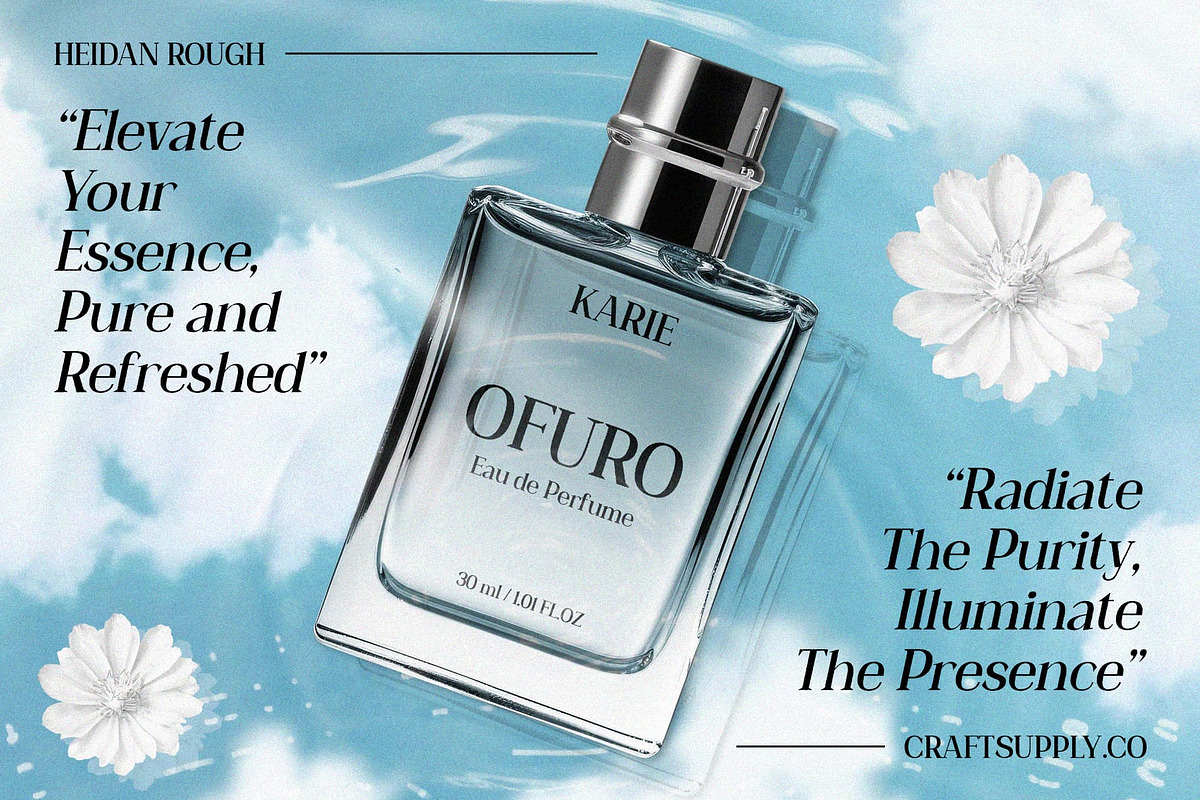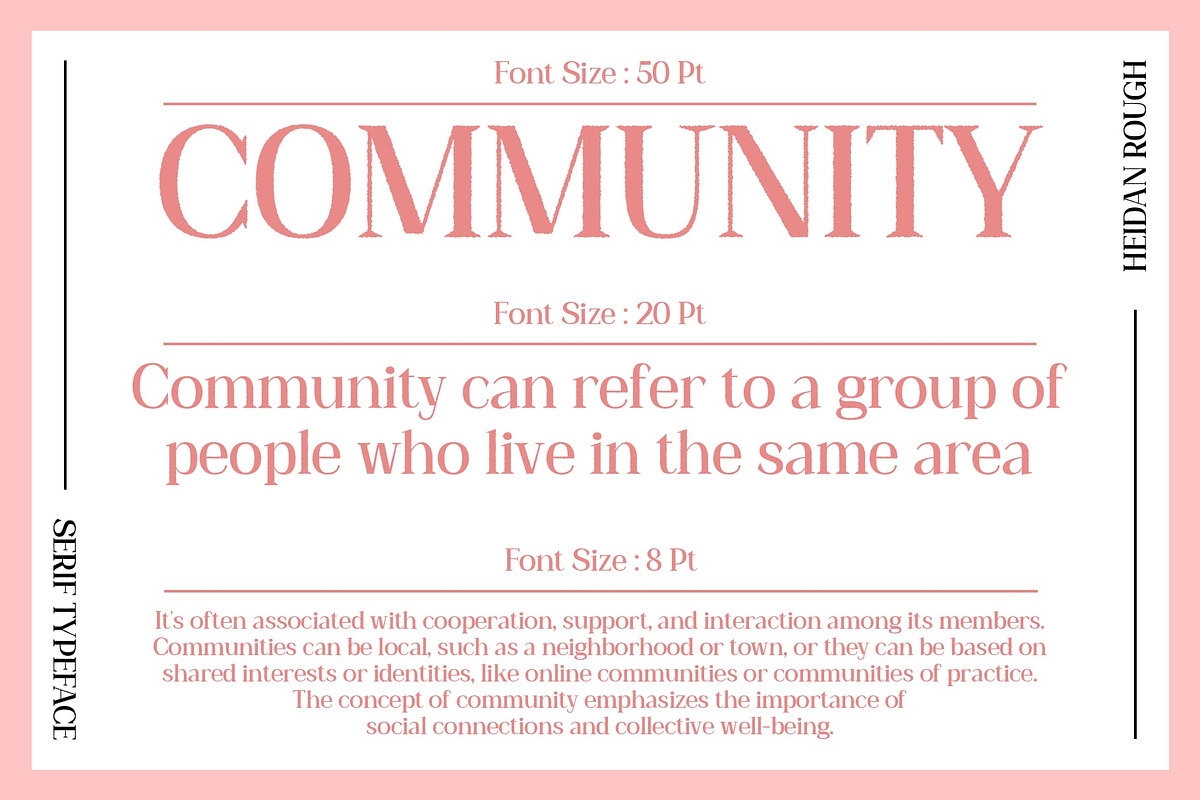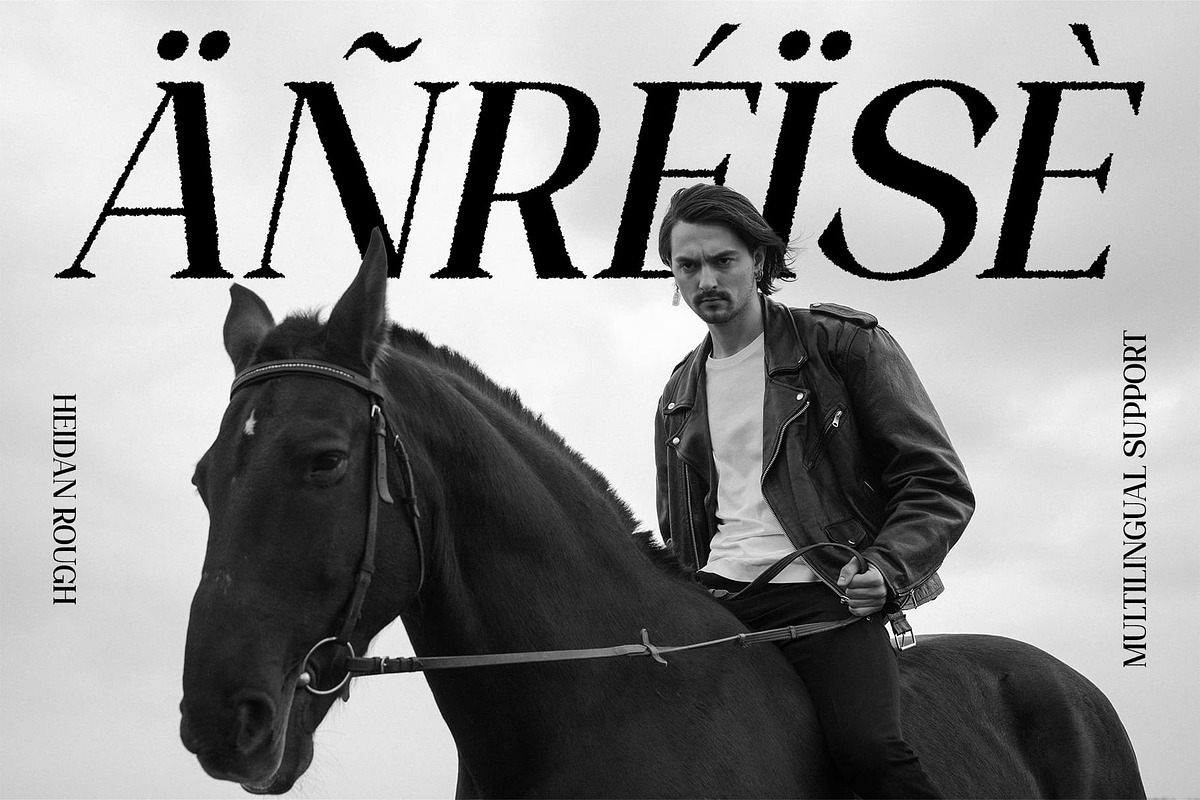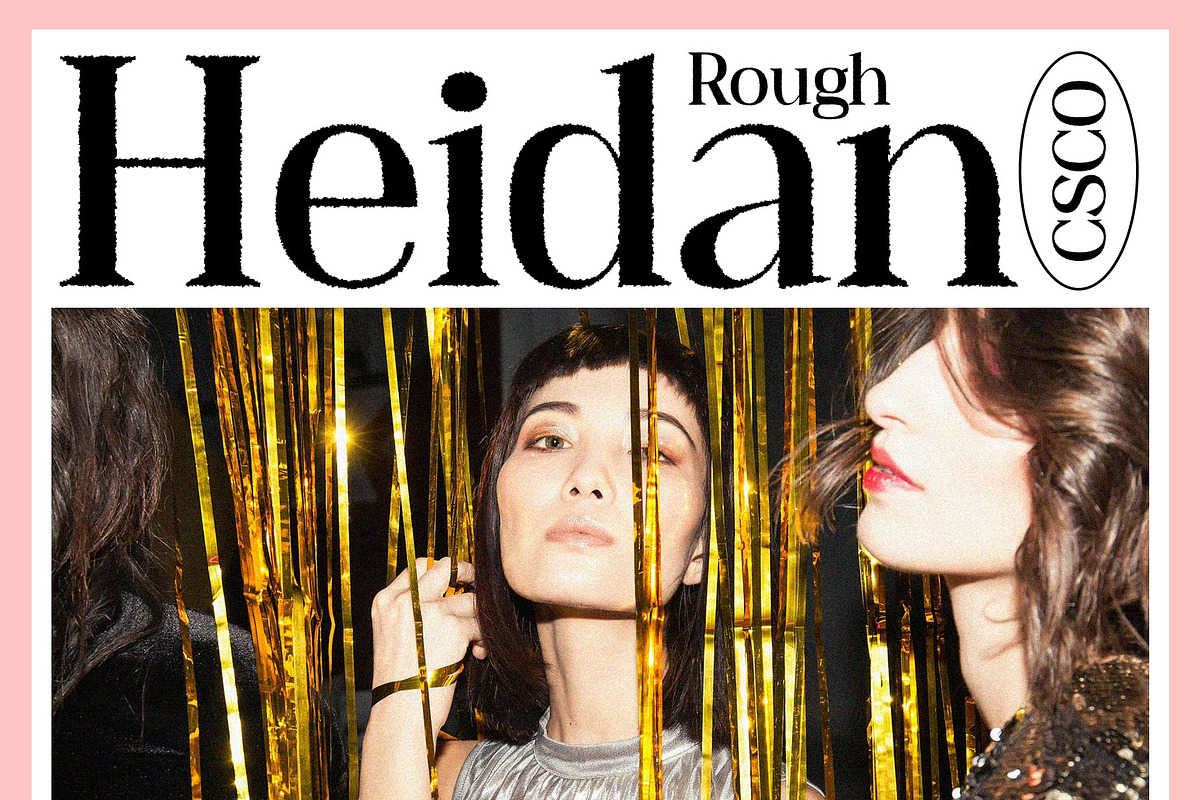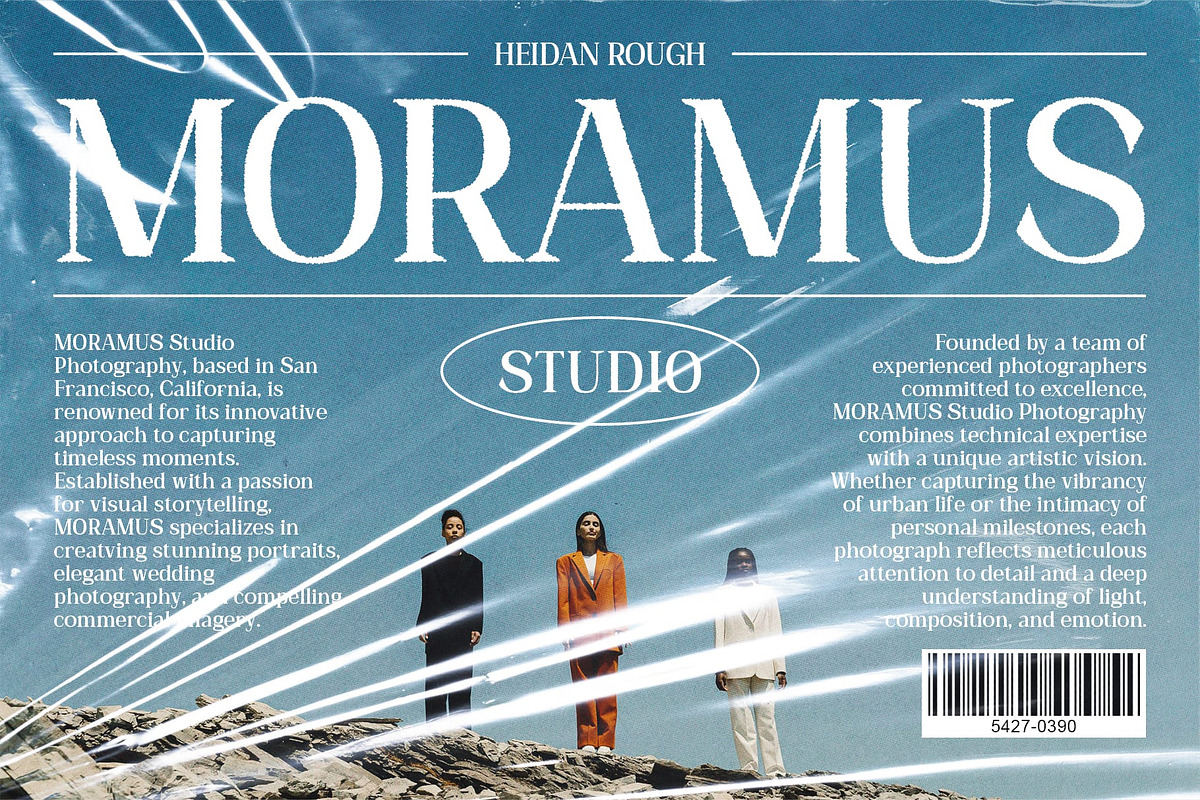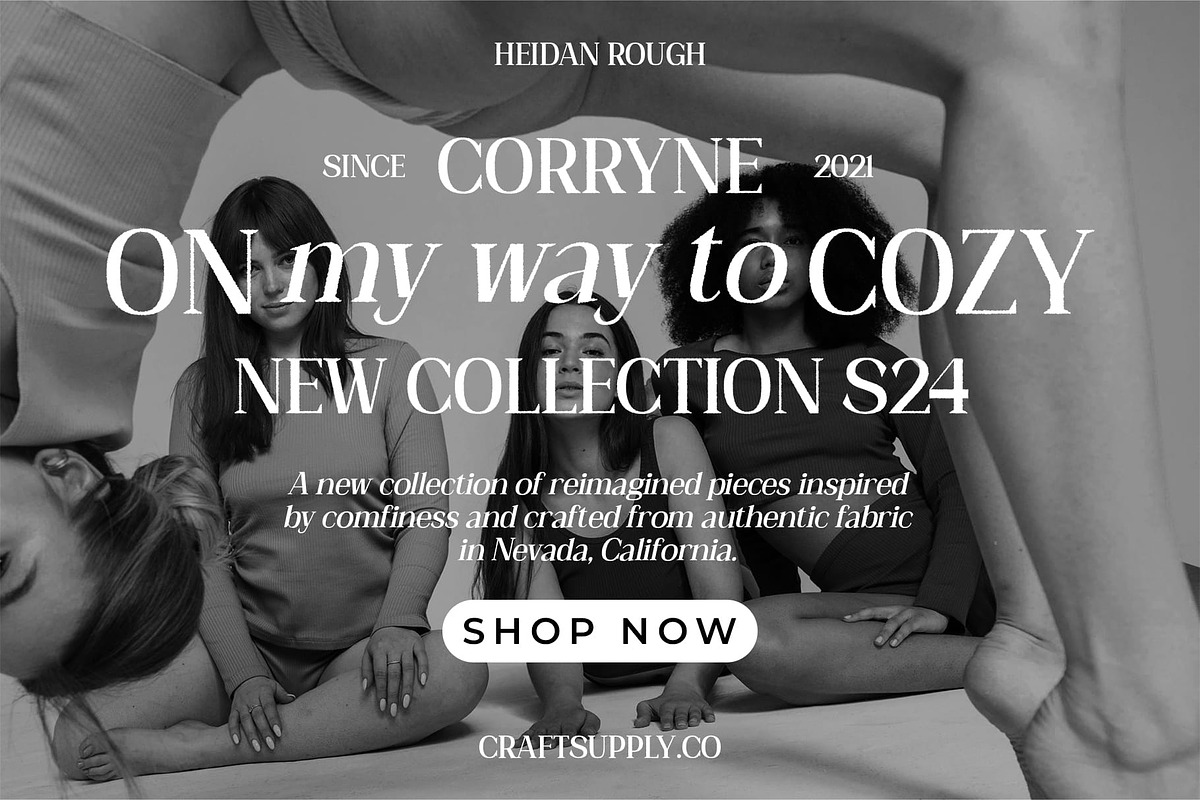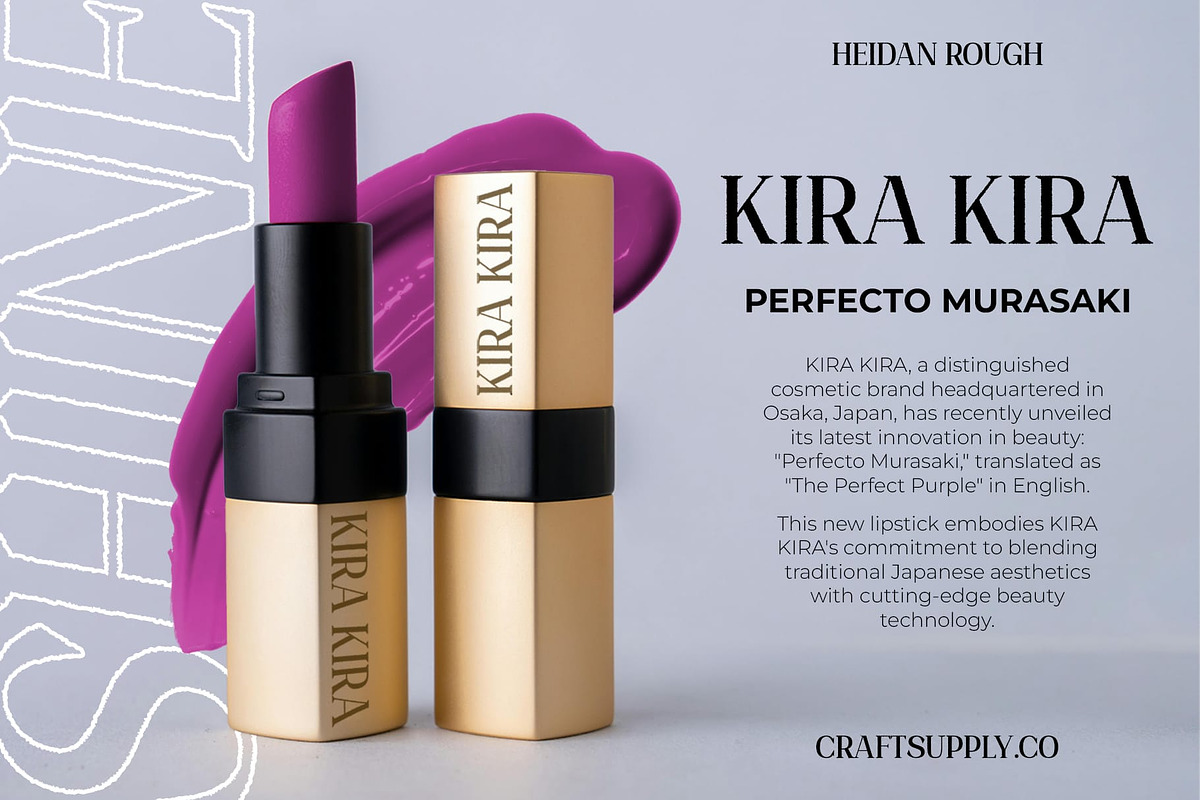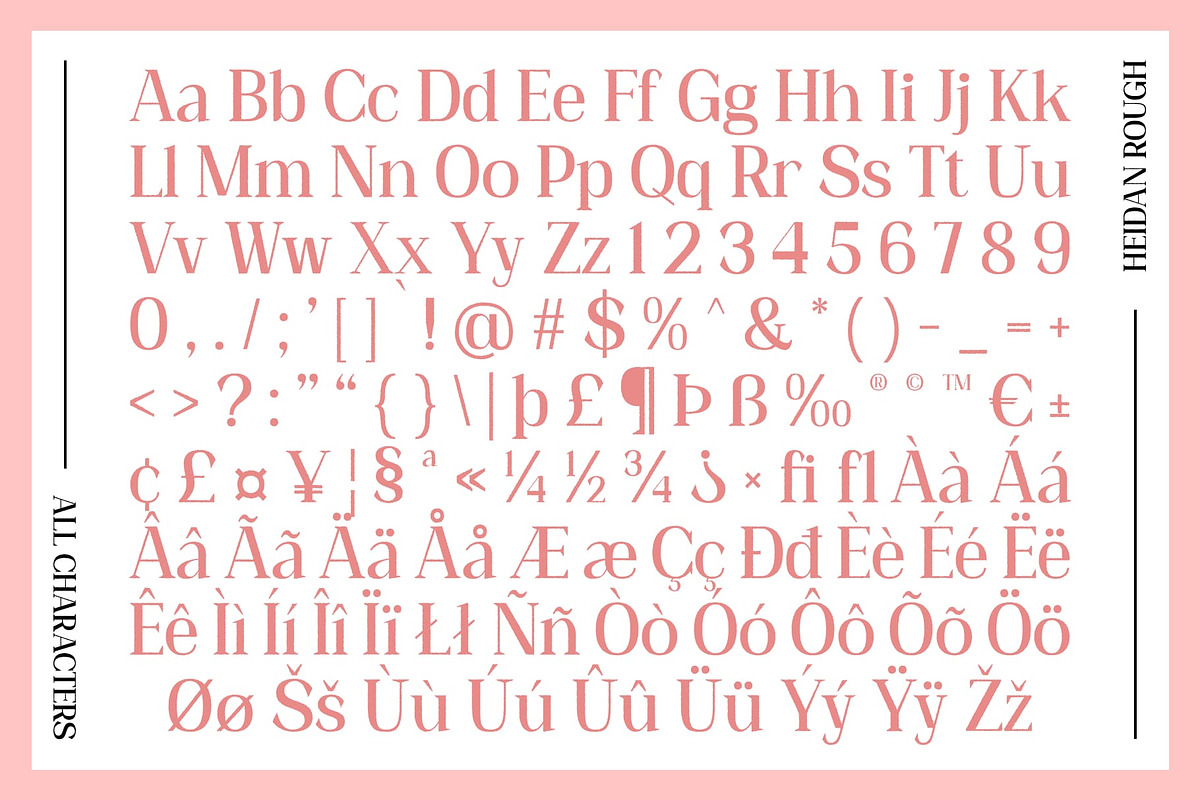
Heidan Rough
Heidan Rough Font: Classic Wedge Serif with Timeless Elegance
Wedge Serif Font with Bold, Tapered Serifs Heidan Rough is a wedge serif font characterized by its bold, tapered serifs that resemble a wedge shape. This distinctive feature imparts a classic and charming feel, rooted in traditional serif design.
Elegant and Authoritative Design The well-defined and stable serif design of Heidan Rough exudes elegance and authority. Its traditional structure ensures a refined appearance, making it ideal for applications that require a touch of vintage sophistication and formal credibility.
Ideal for Vintage and Formal Applications Heidan Rough is perfect for official documents, invitations, and branding projects that aim to project quality and trust. Its classic design beauty enhances high visibility and readability, ensuring that your text stands out with a timeless, authoritative touch.
Enhances Classic Beauty with Modern Readability With its combination of classic wedge serifs and refined structure, Heidan Rough highlights the beauty of traditional design while ensuring clear and effective communication. This font is ideal for projects that demand both elegance and practicality.